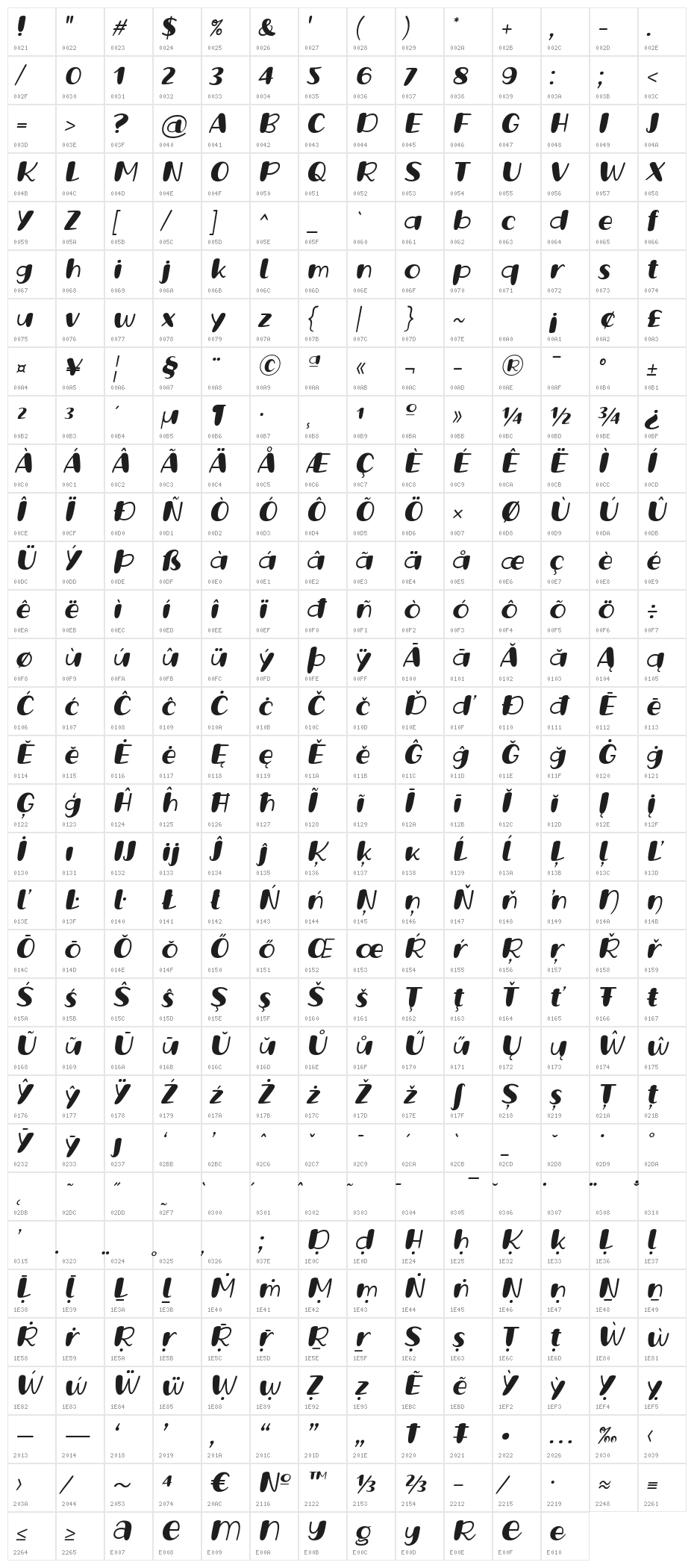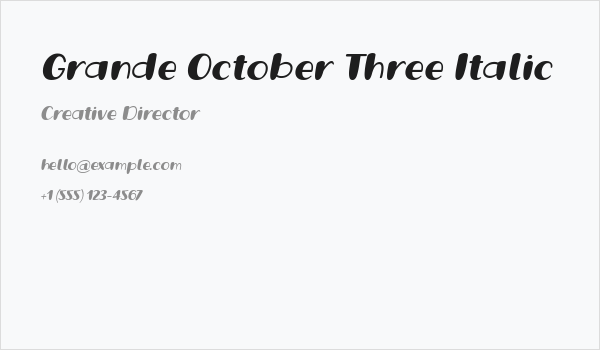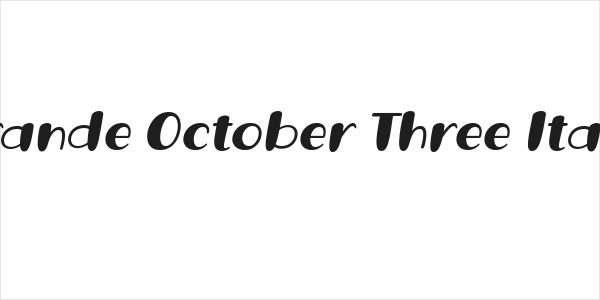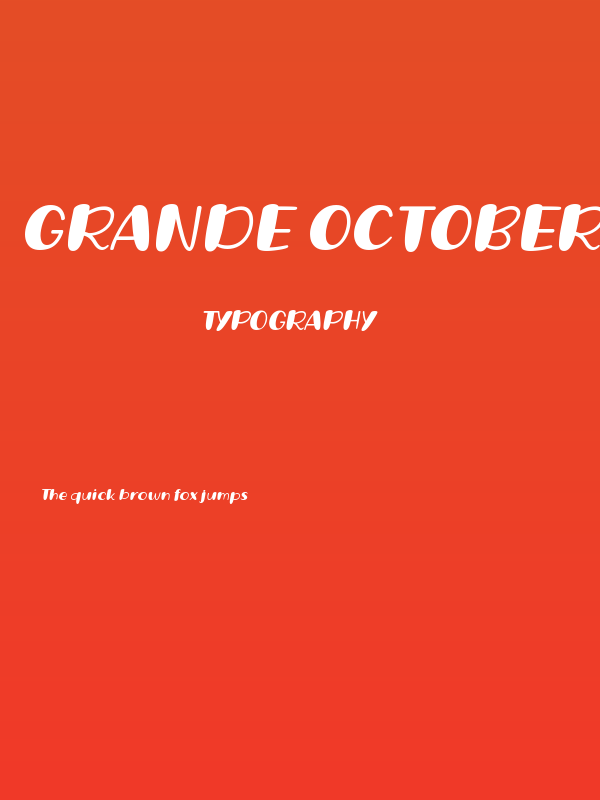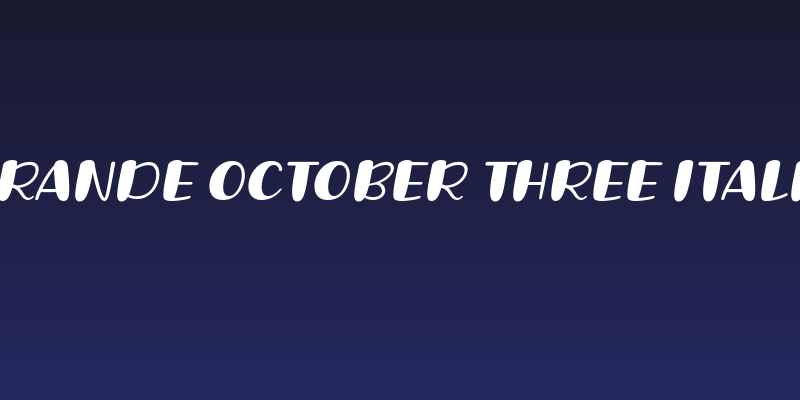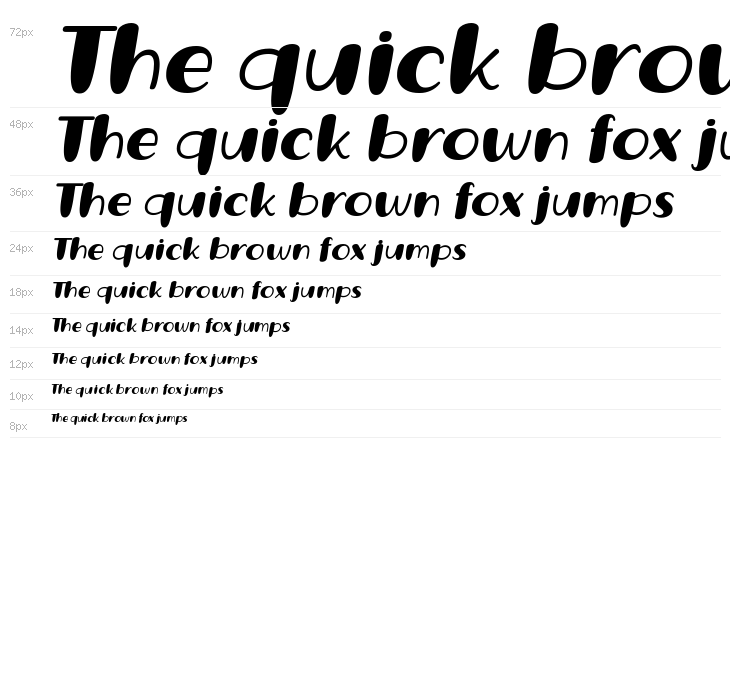
Grande October Three Italic Font
Grande October Three Italic Description
This font features a dynamic and fluid style, characterized by its italicized and slightly cursive appearance. The letters have a playful yet sophisticated look, with smooth curves and a consistent slant that adds a sense of motion and elegance. The uppercase letters are bold and prominent, while the lowercase letters maintain a harmonious flow, making it suitable for both formal and creative applications. The numerals are clear and well-defined, ensuring readability. Special characters are thoughtfully designed to match the overall aesthetic, providing versatility for various design needs.
| Proposed Projects | Ideal for branding, invitations, greeting cards, and creative projects requiring a touch of elegance. |